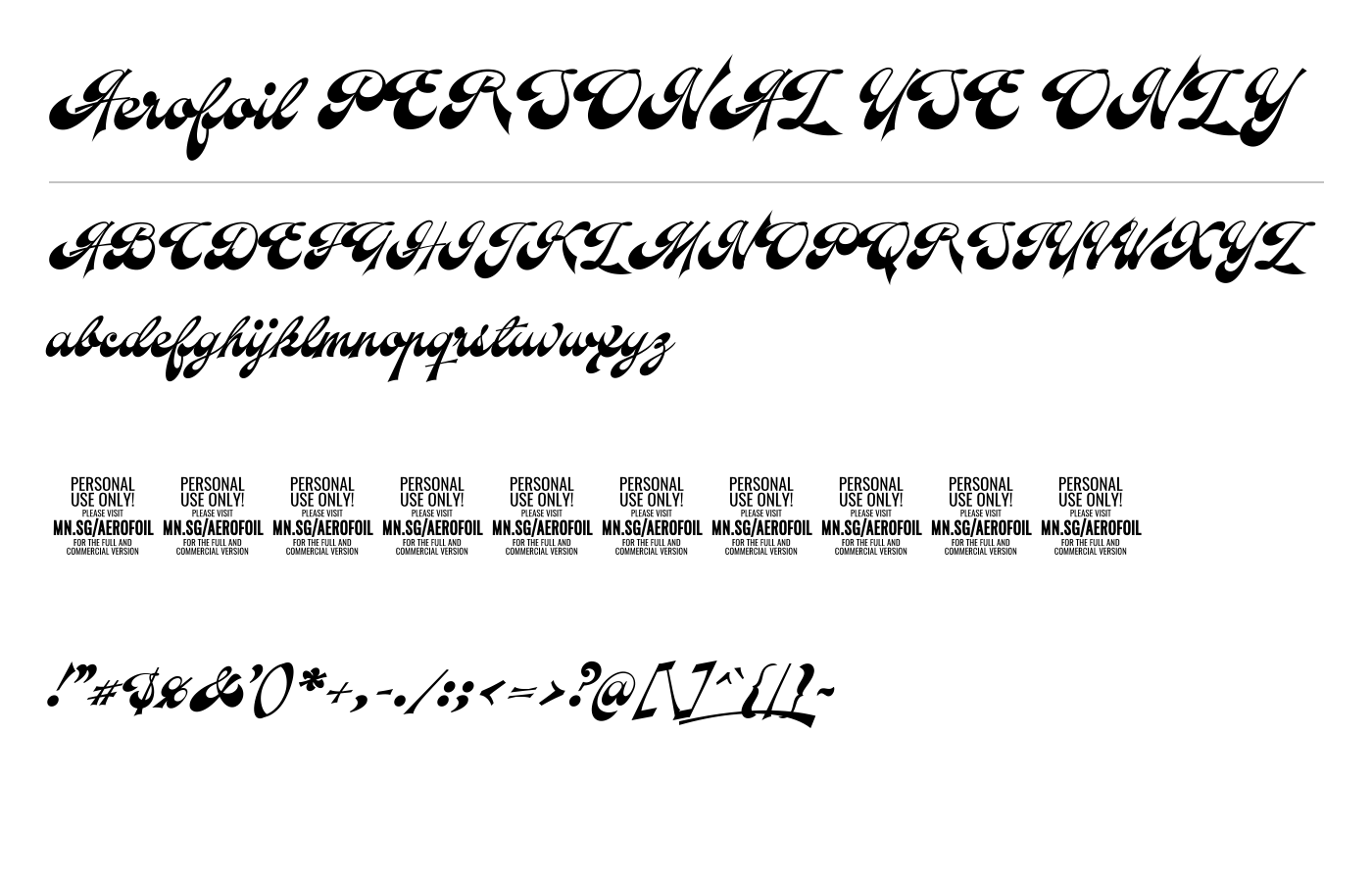
Aerofoil is a bold, ornate script font with dramatic thick-and-thin strokes and sharp, decorative flourishes that create a striking, vintage-inspired flair. Its strong contrast and stylized letterforms make it ideal for eye-catching headlines, logos, and branding projects that seek a luxurious and elegant yet bold personality. This font works best in decorative uses where a distinctive, classic feel is desired rather than for long body text.